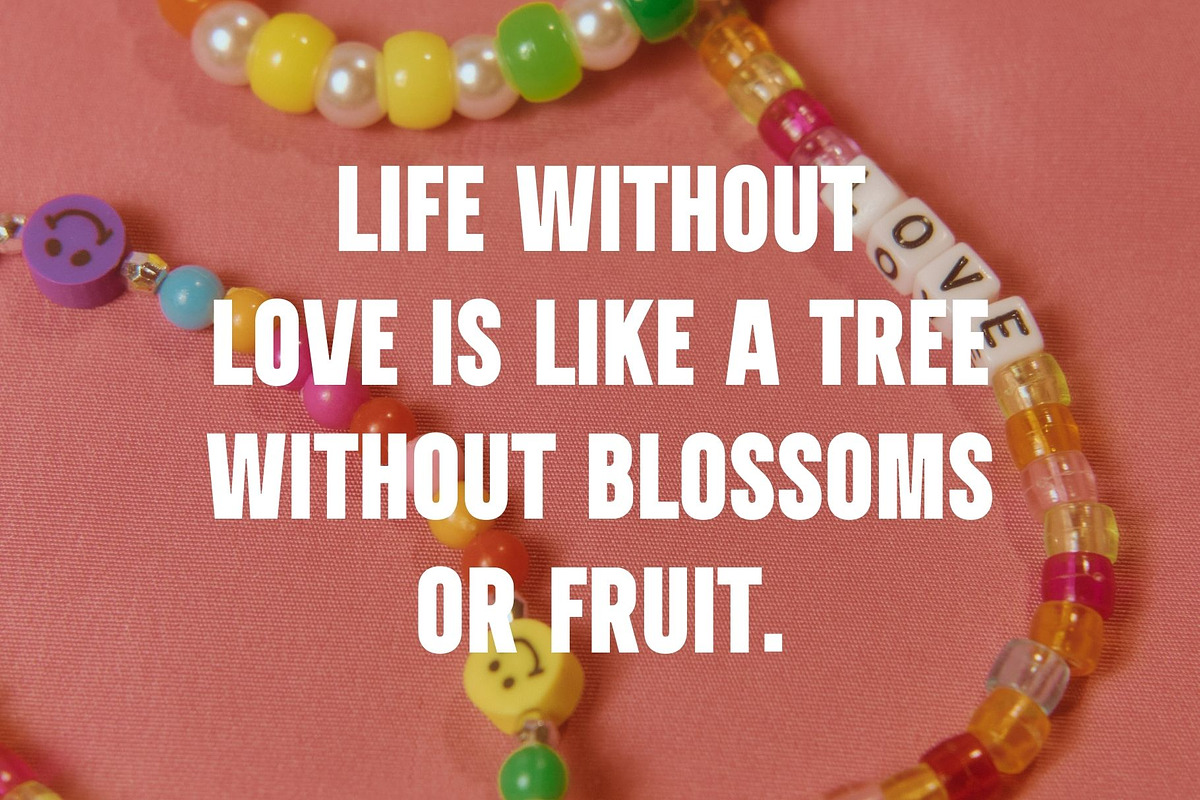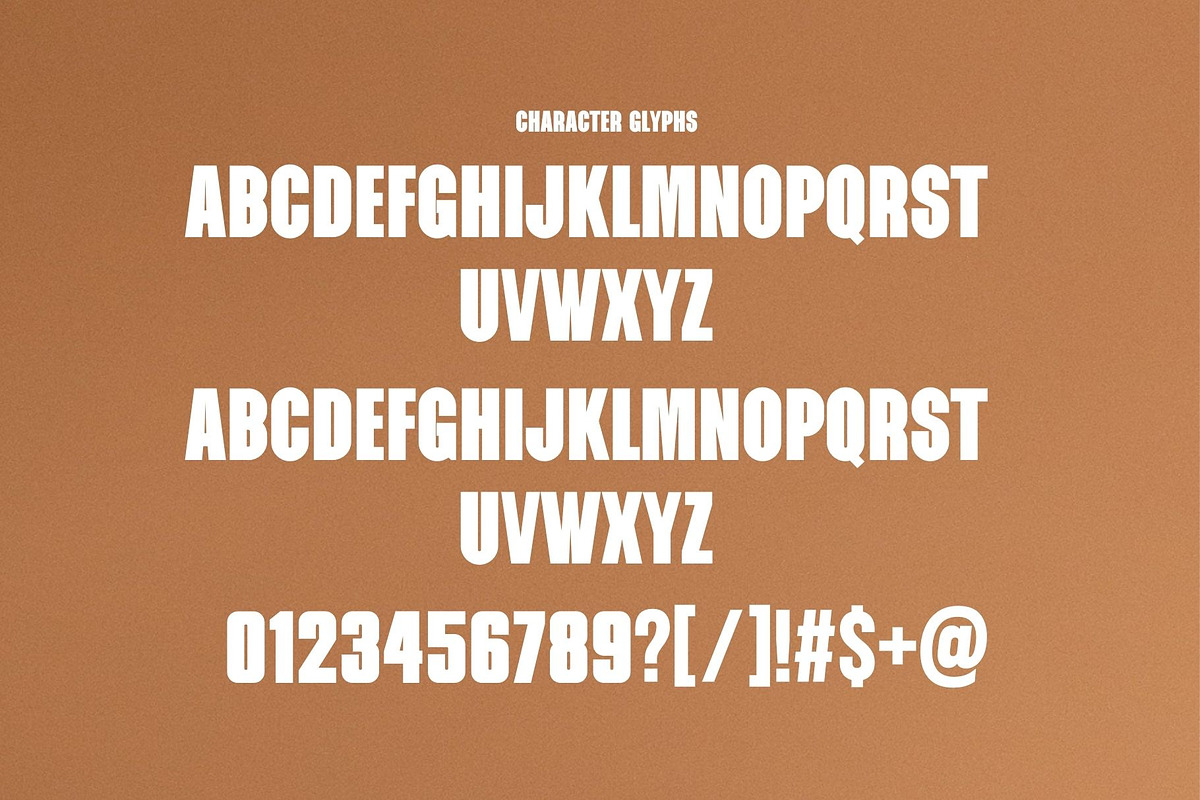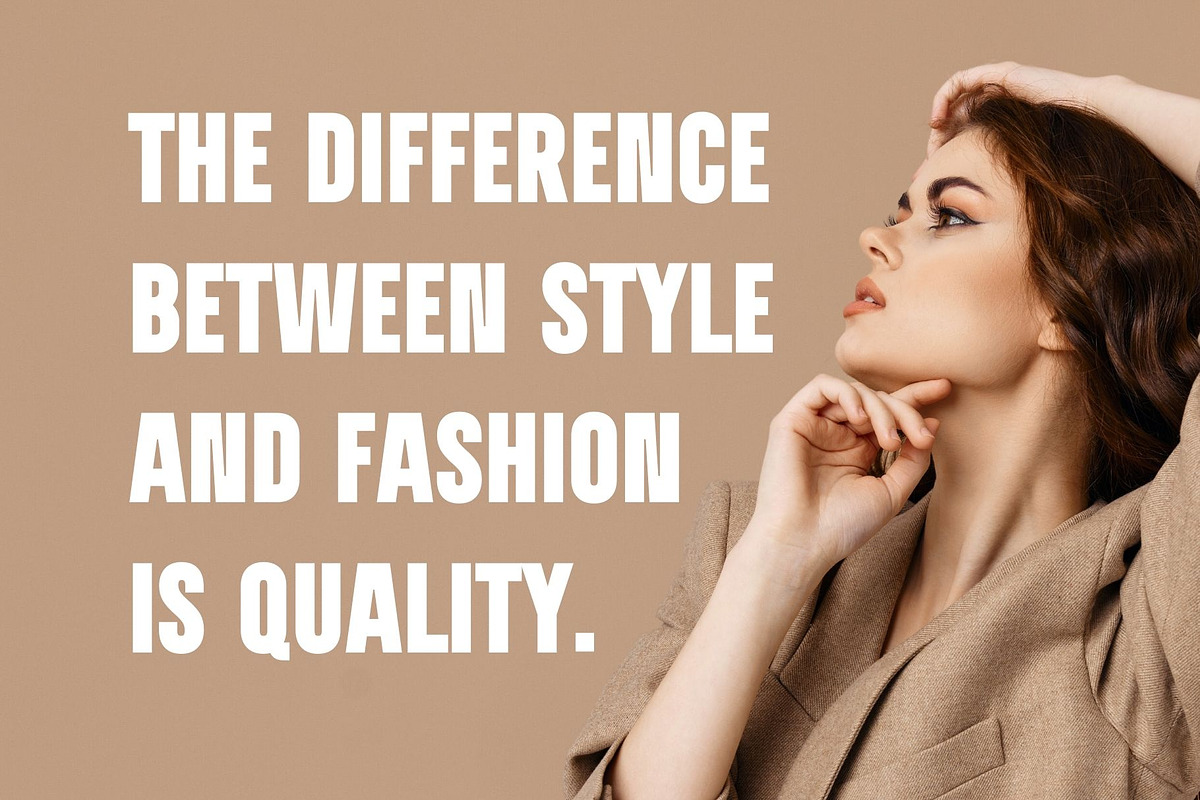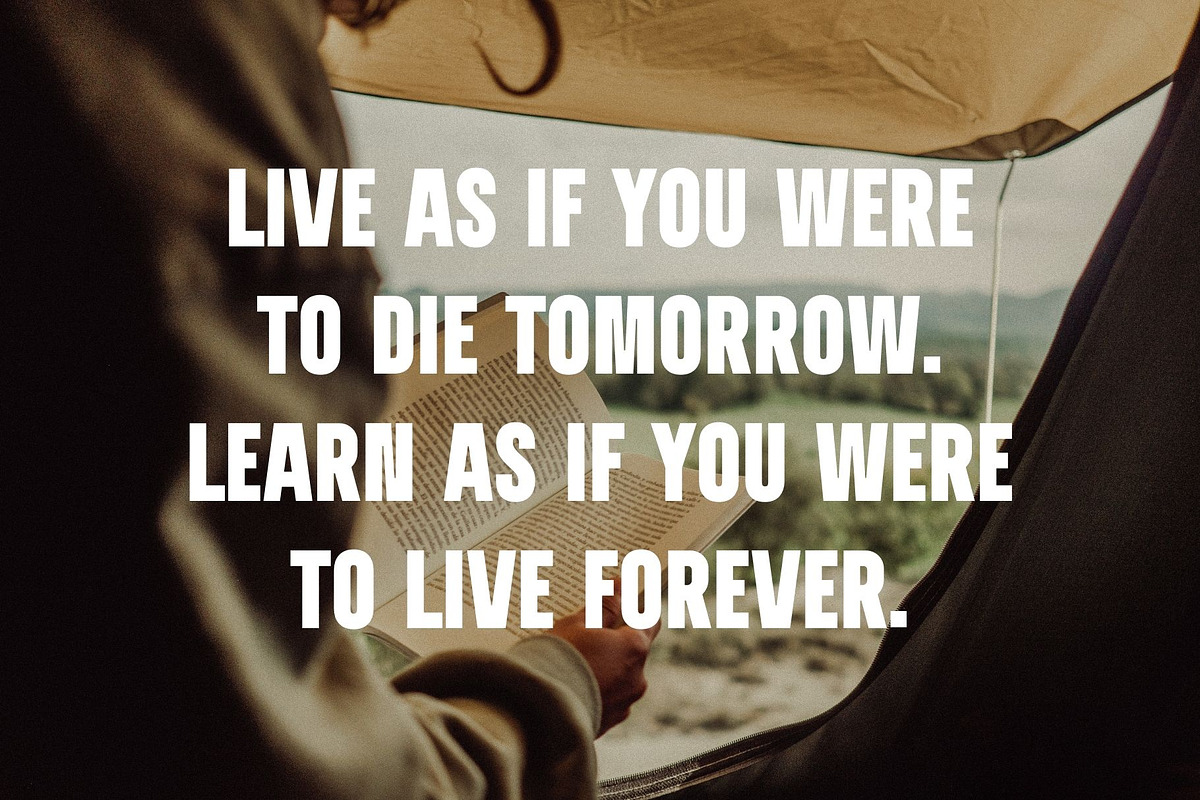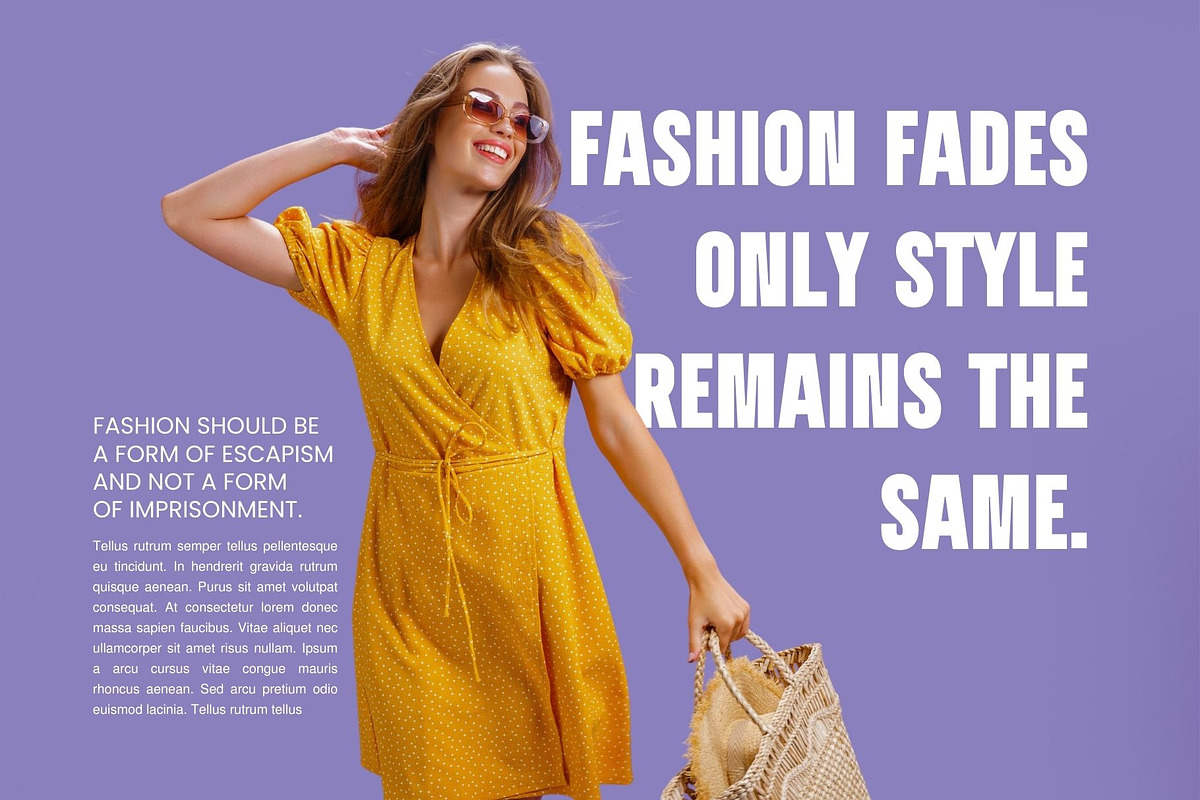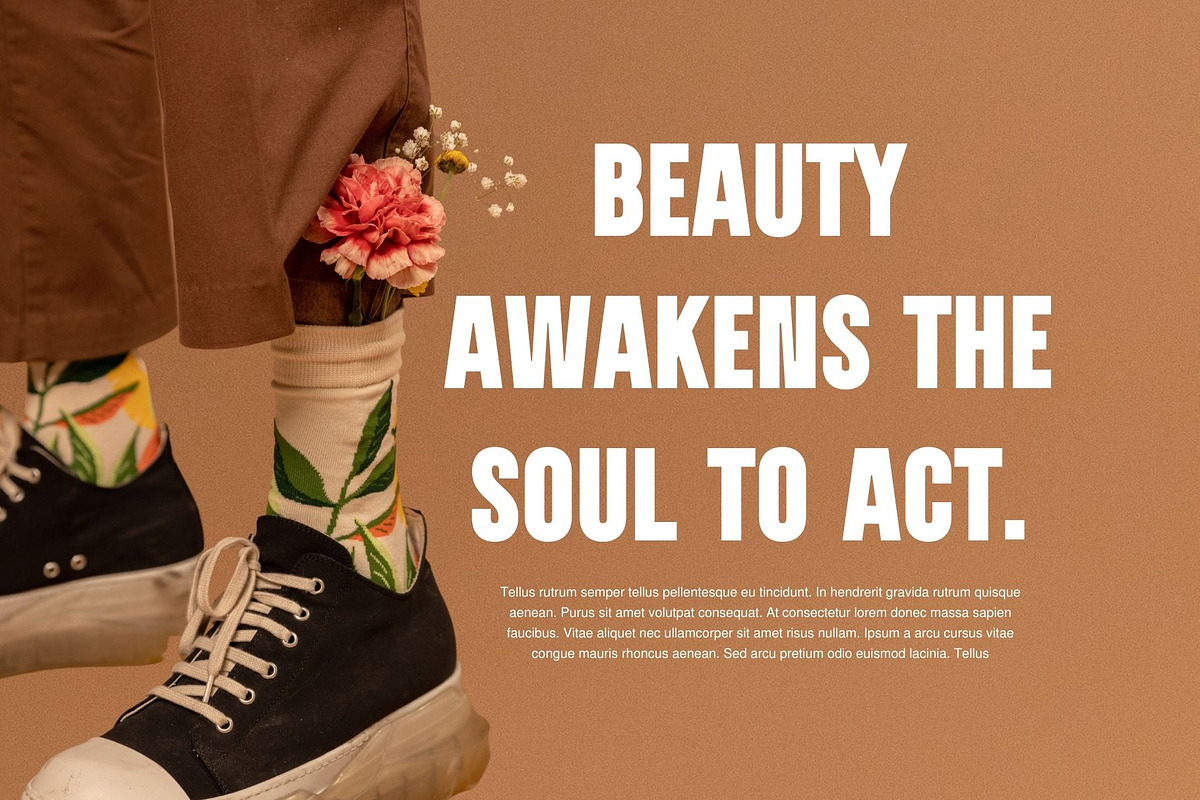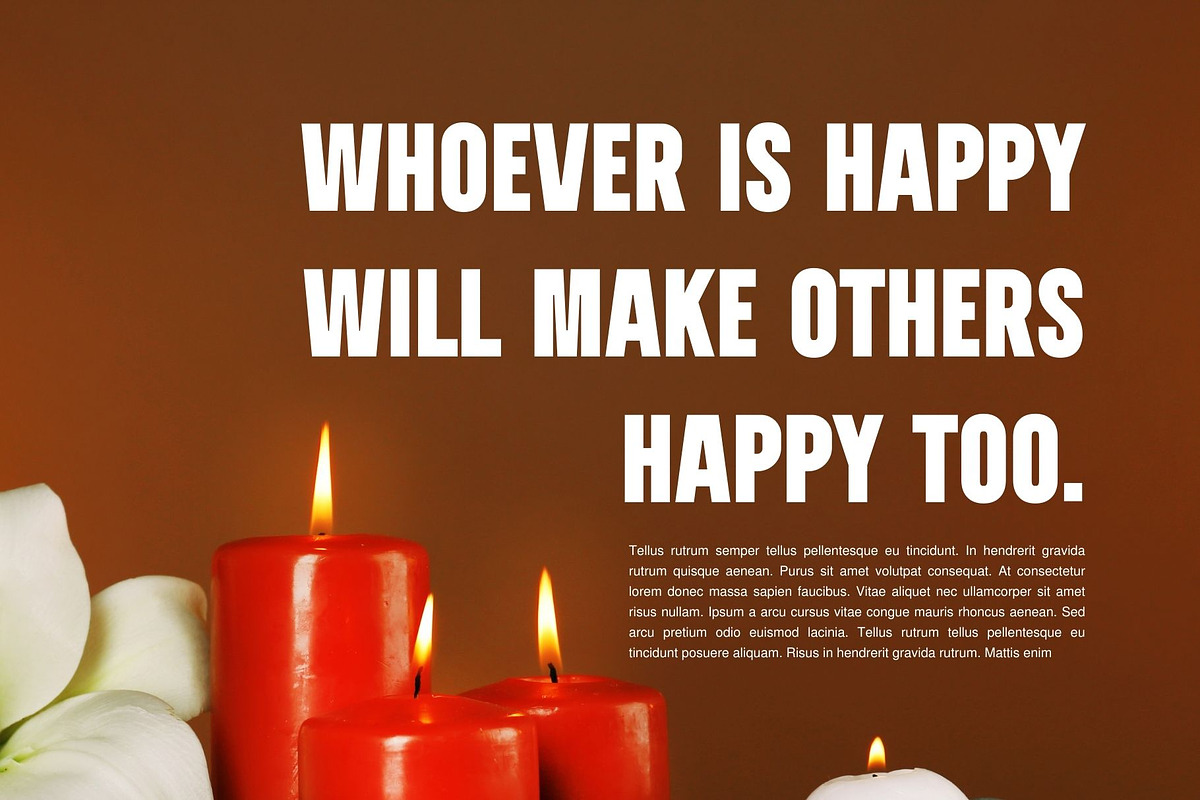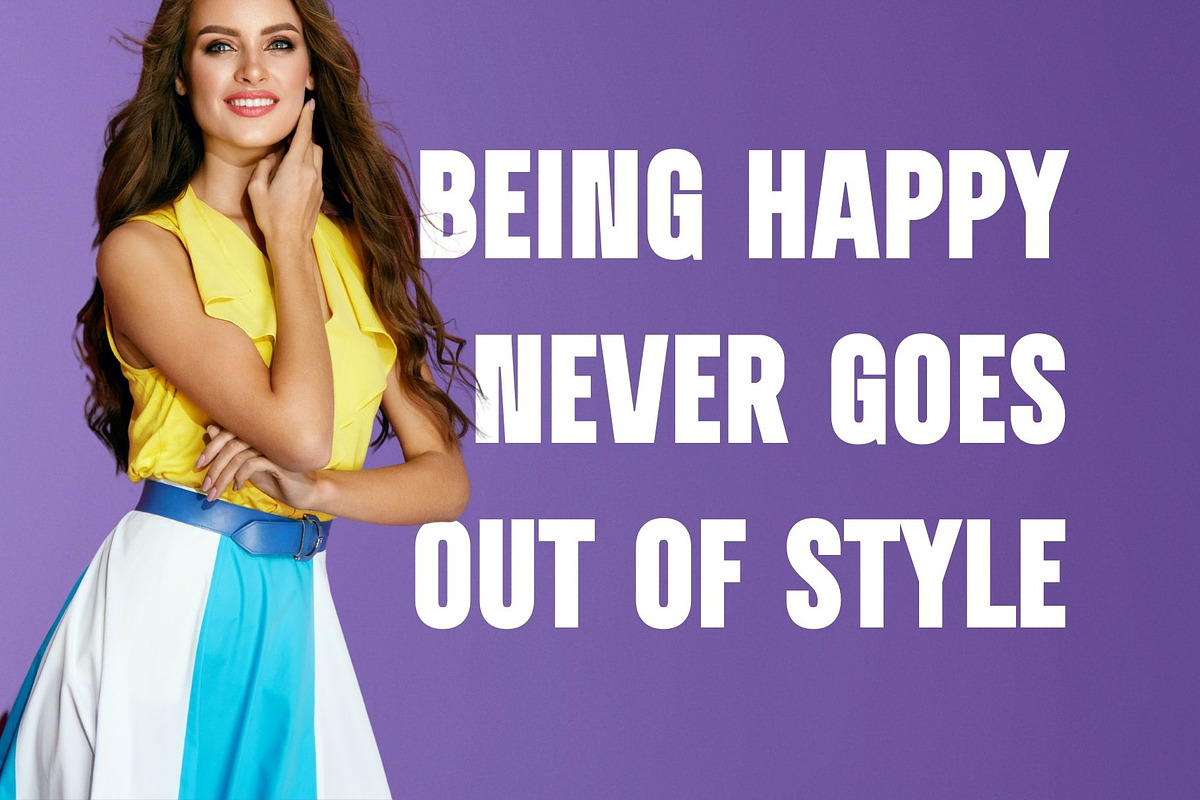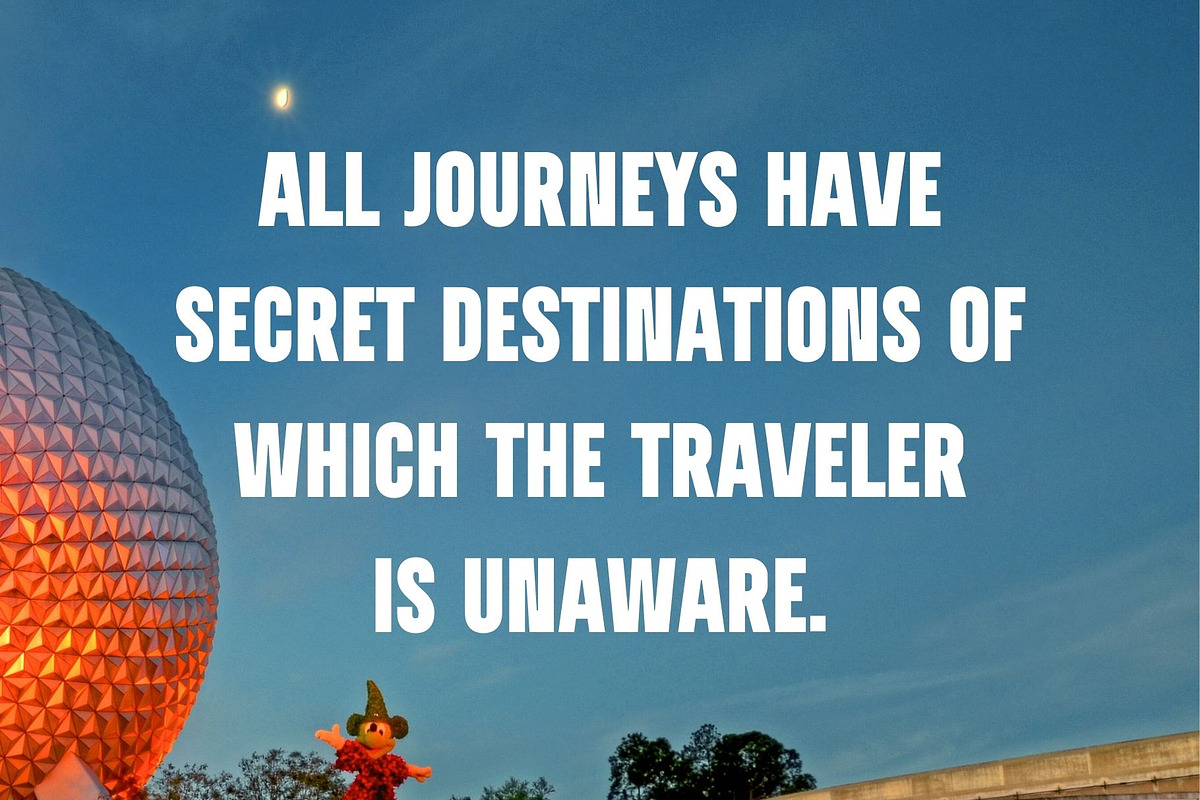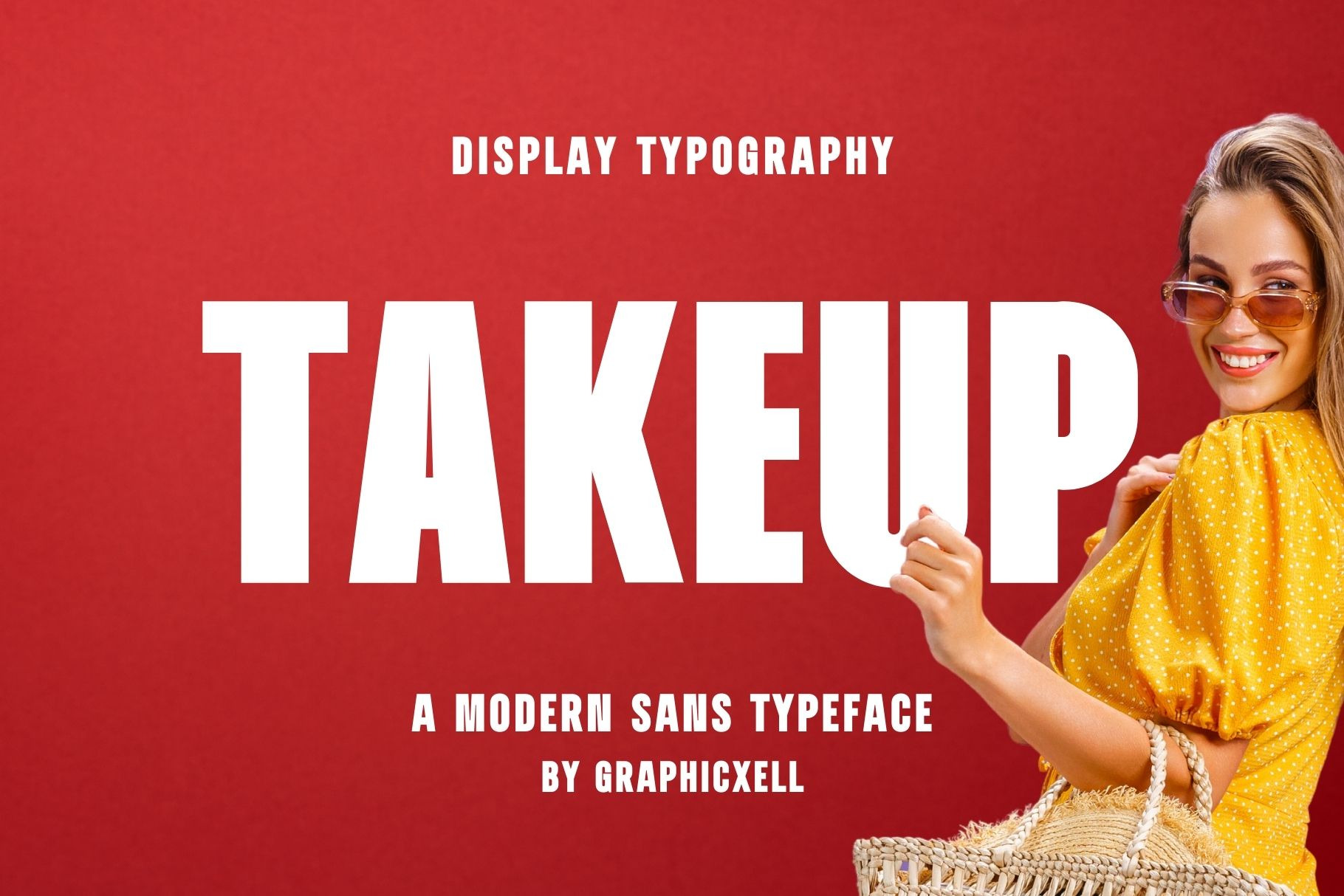
Takeup Modern Bold Sans Font Typefac
Takeup Modern Bold Sans Font Typeface inspired by the famous minimalist logo perfect for the purposes of designing templates, brochures, videos, advertising branding, logos, invitation, layout design, elegant crafting, beauty design and other